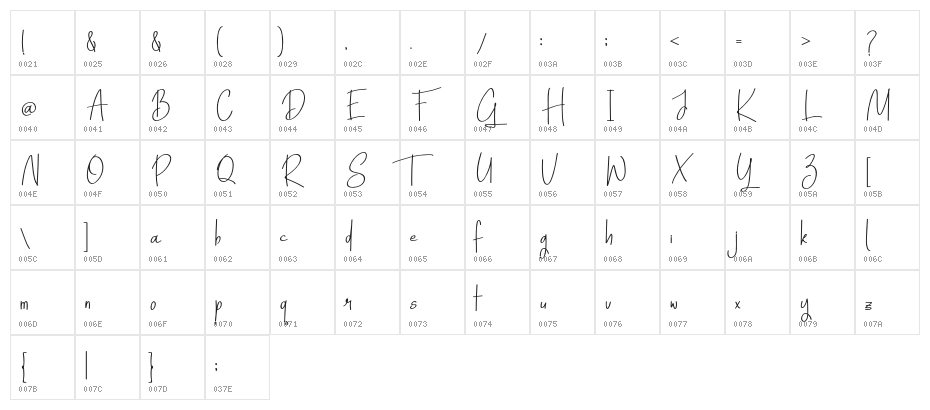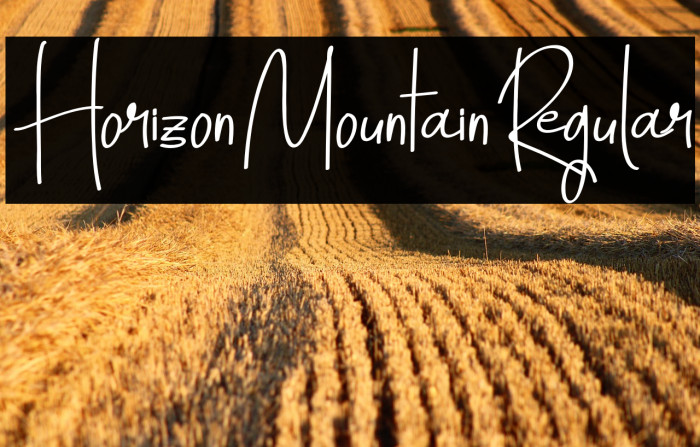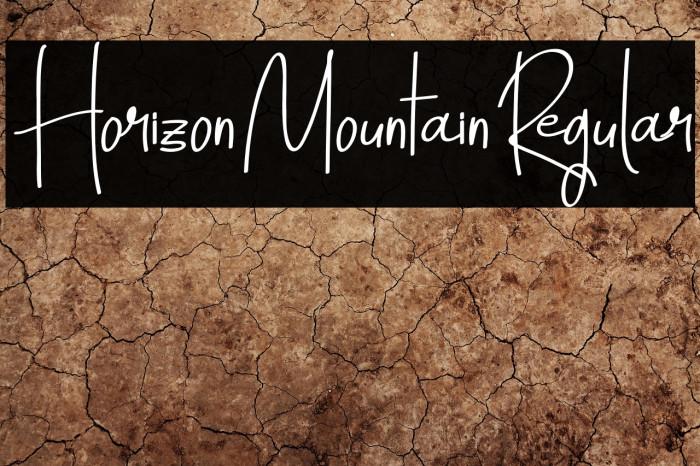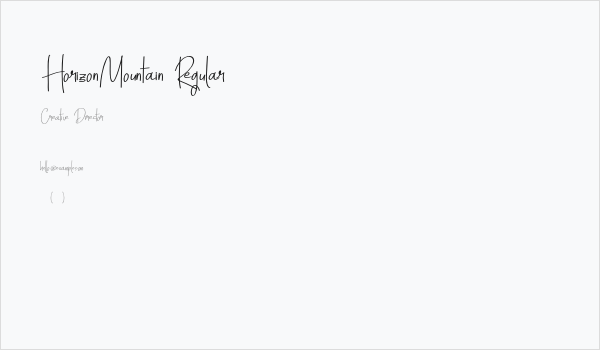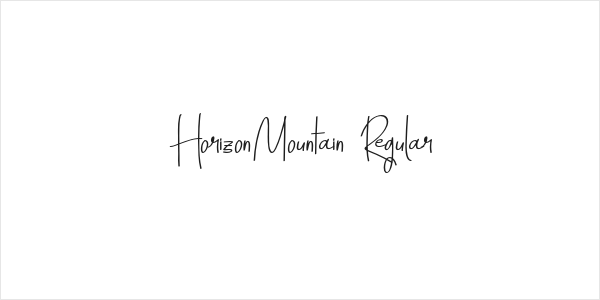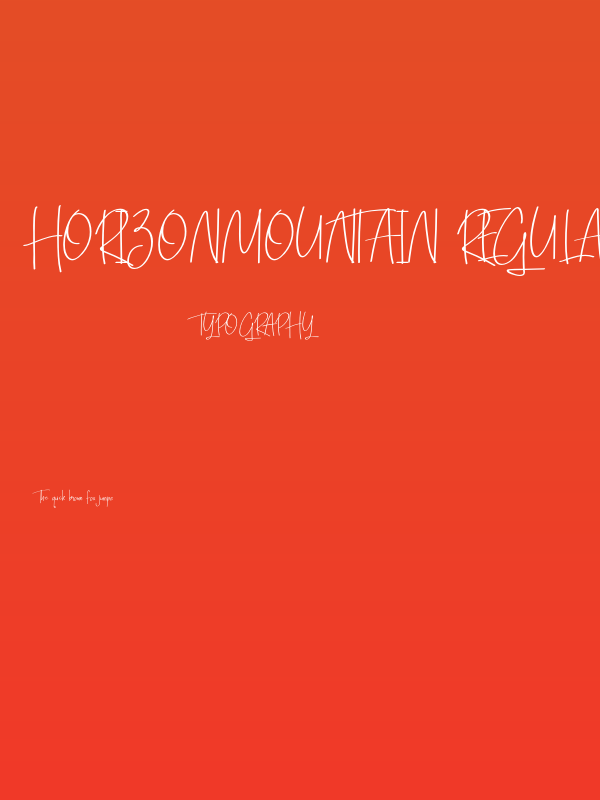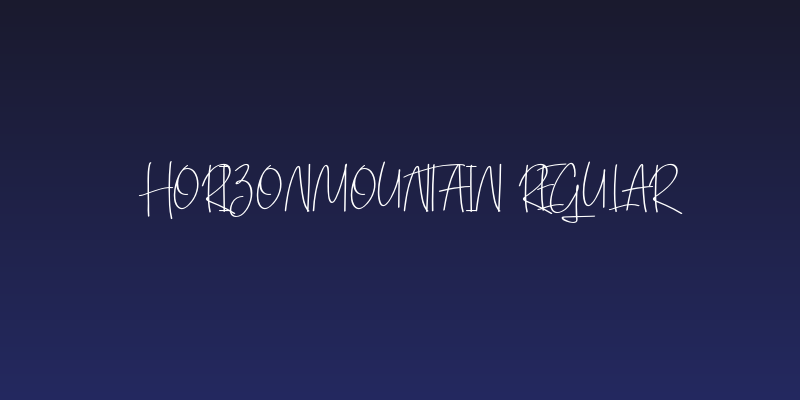
HorizonMountain-Regular Font
HorizonMountain-Regular Description
This font features a playful and dynamic handwritten style with tall, narrow characters that exhibit a lively and informal appearance. The strokes are thin and slightly irregular, giving it a personal and spontaneous feel. The uppercase letters are particularly elongated, while the lowercase letters maintain a consistent height, contributing to a cohesive yet whimsical look. The numerals and special characters follow the same energetic style, making the font versatile for creative projects. Its unique character spacing adds to the casual and approachable nature, making it suitable for a variety of design applications.
| Proposed Projects | Ideal for greeting cards, invitations, personal branding, and creative social media graphics. |